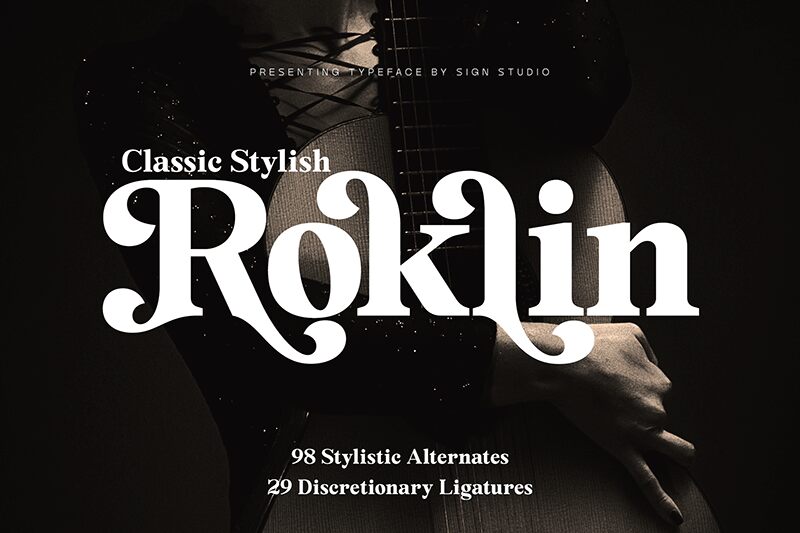
Roklin, the mesmerizing creation by Sign Studio, is a bold and semi-expanded display font that effortlessly channels retro vibes. Its eye-catching design makes it perfect for vintage-inspired logos, posters, and album covers. With its distinctive curves and captivating appeal, Roklin adds a touch of nostalgia to your creative projects. Whether you're designing branding materials for a trendy cafe or crafting an invitation for a retro-themed event, this font will make your designs stand out from the crowd with its unique blend of boldness and semi-expanded width.
Roklin
Roklin Typeface by Sign Studio
Sign Studio